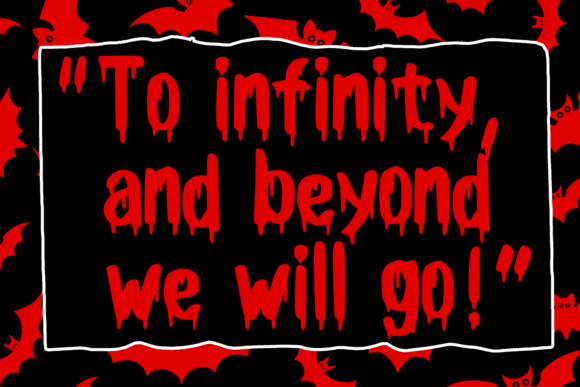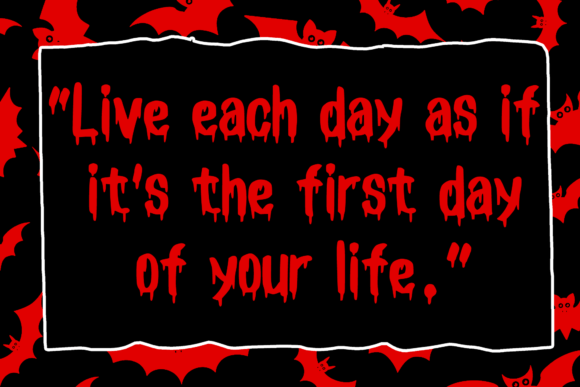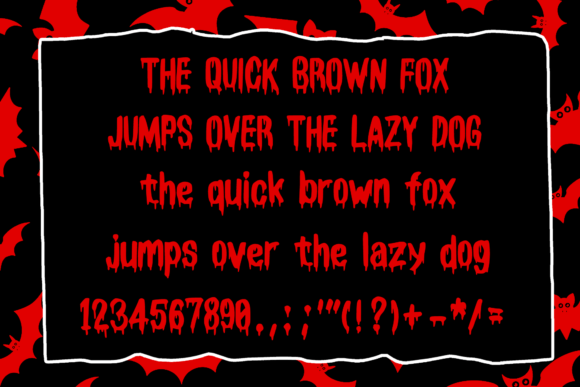
Introduction to Blood of Dracula 2.0 Font
Blood of Dracula 2.
0 is a unique blood-dripping display font It will be perfect for your horror and Halloween-themed needs.
Key Features of Blood of Dracula 2.0 Font
Why Choose Blood of Dracula 2.0 Font?